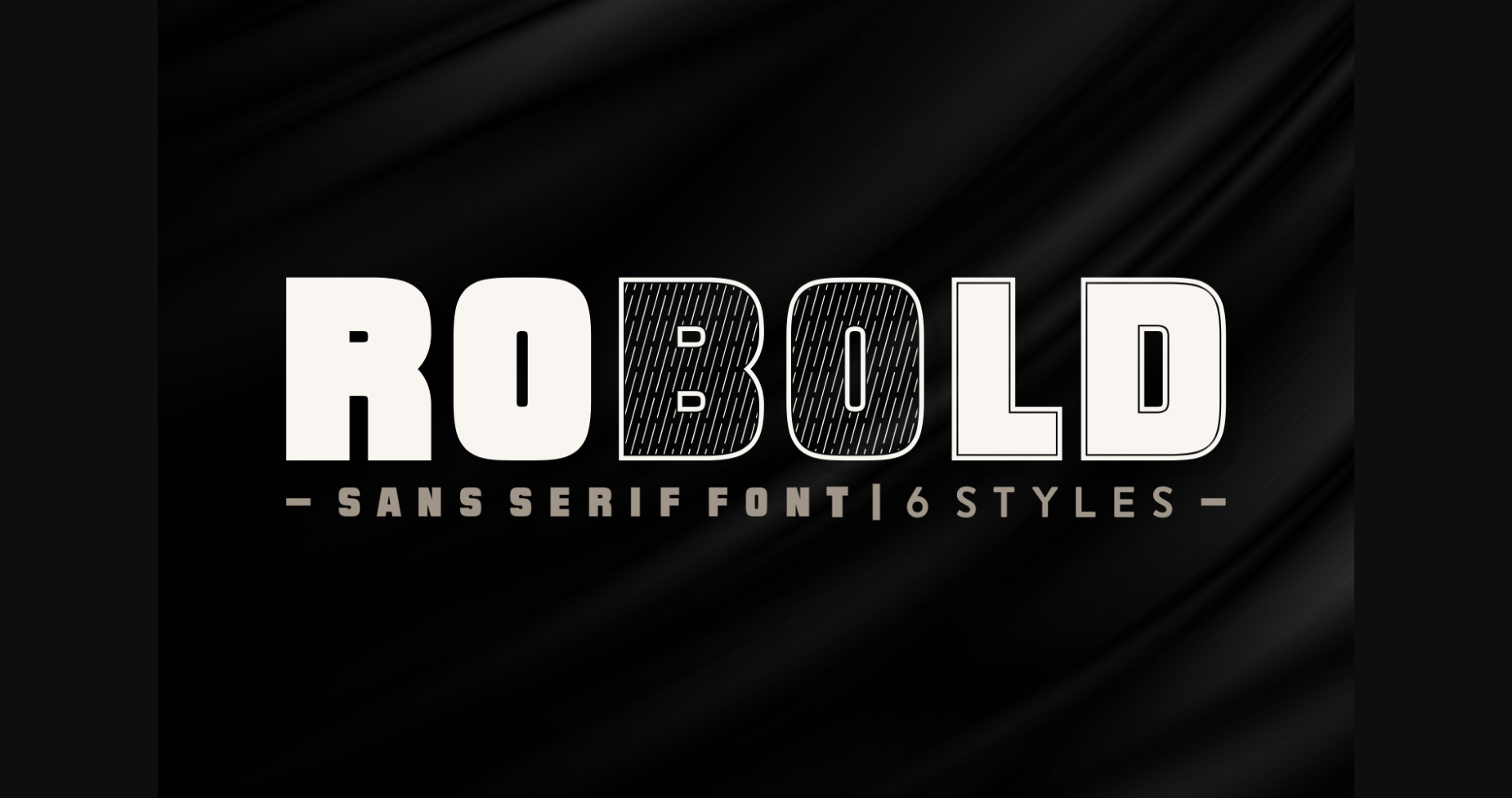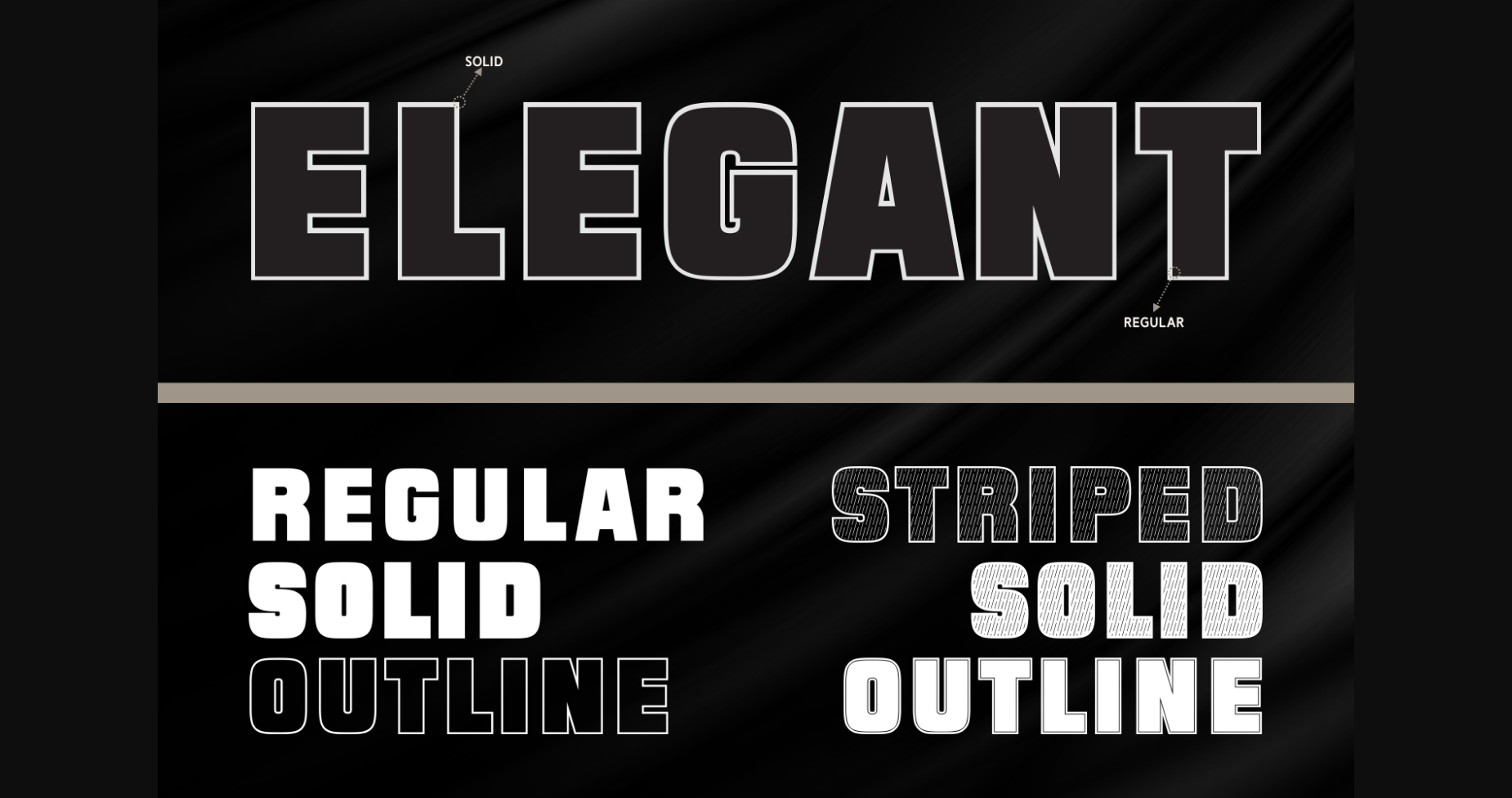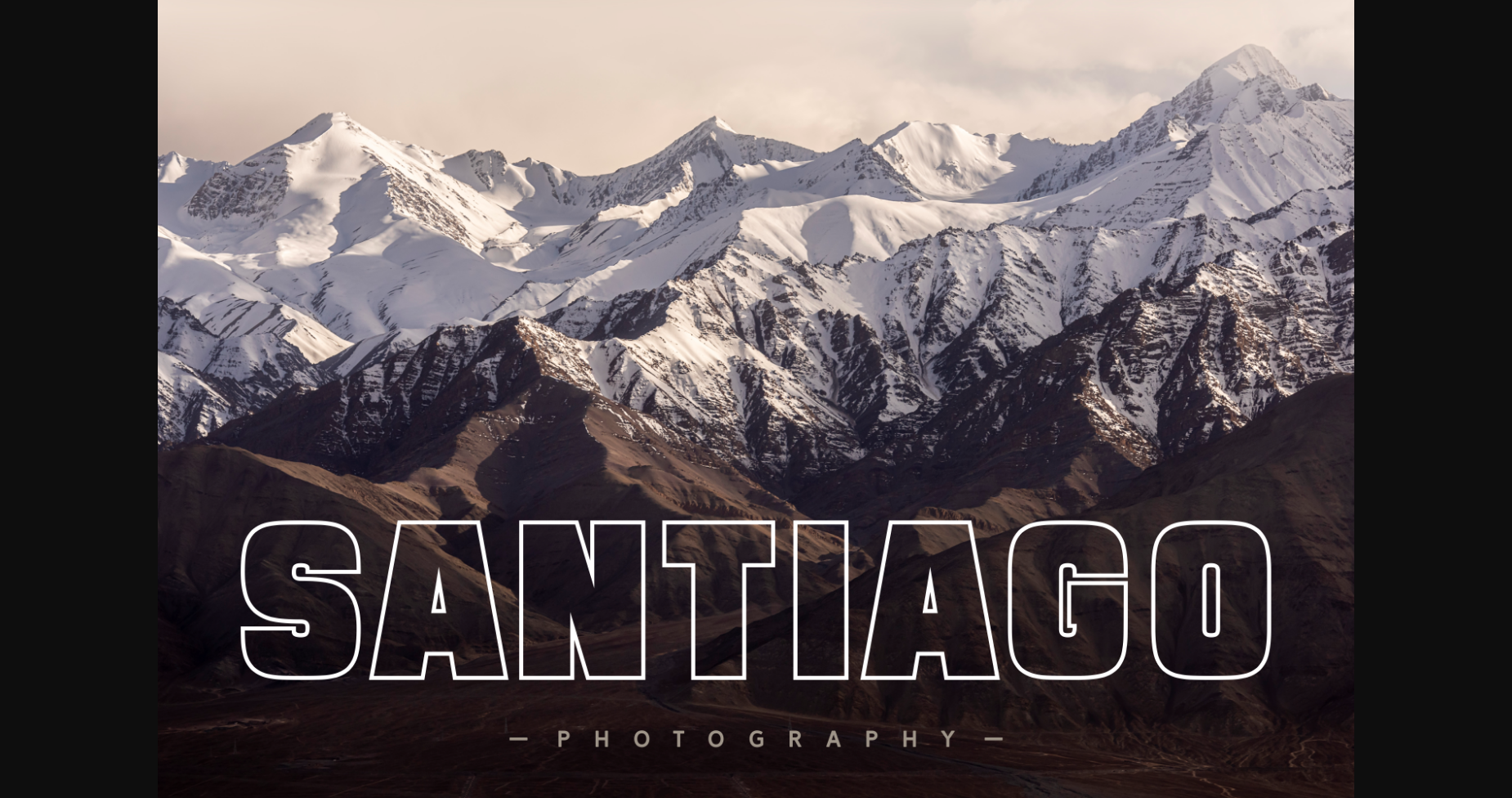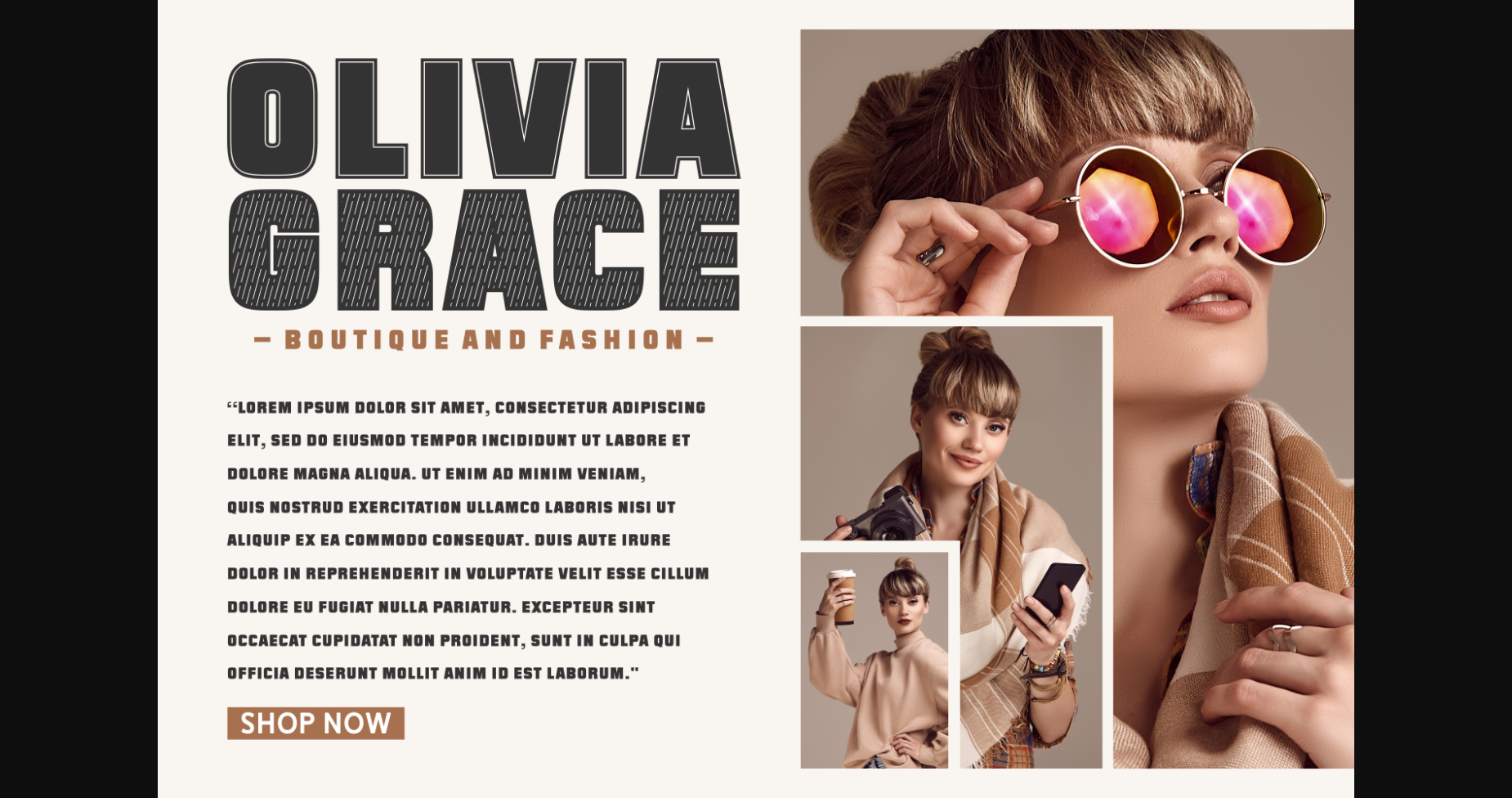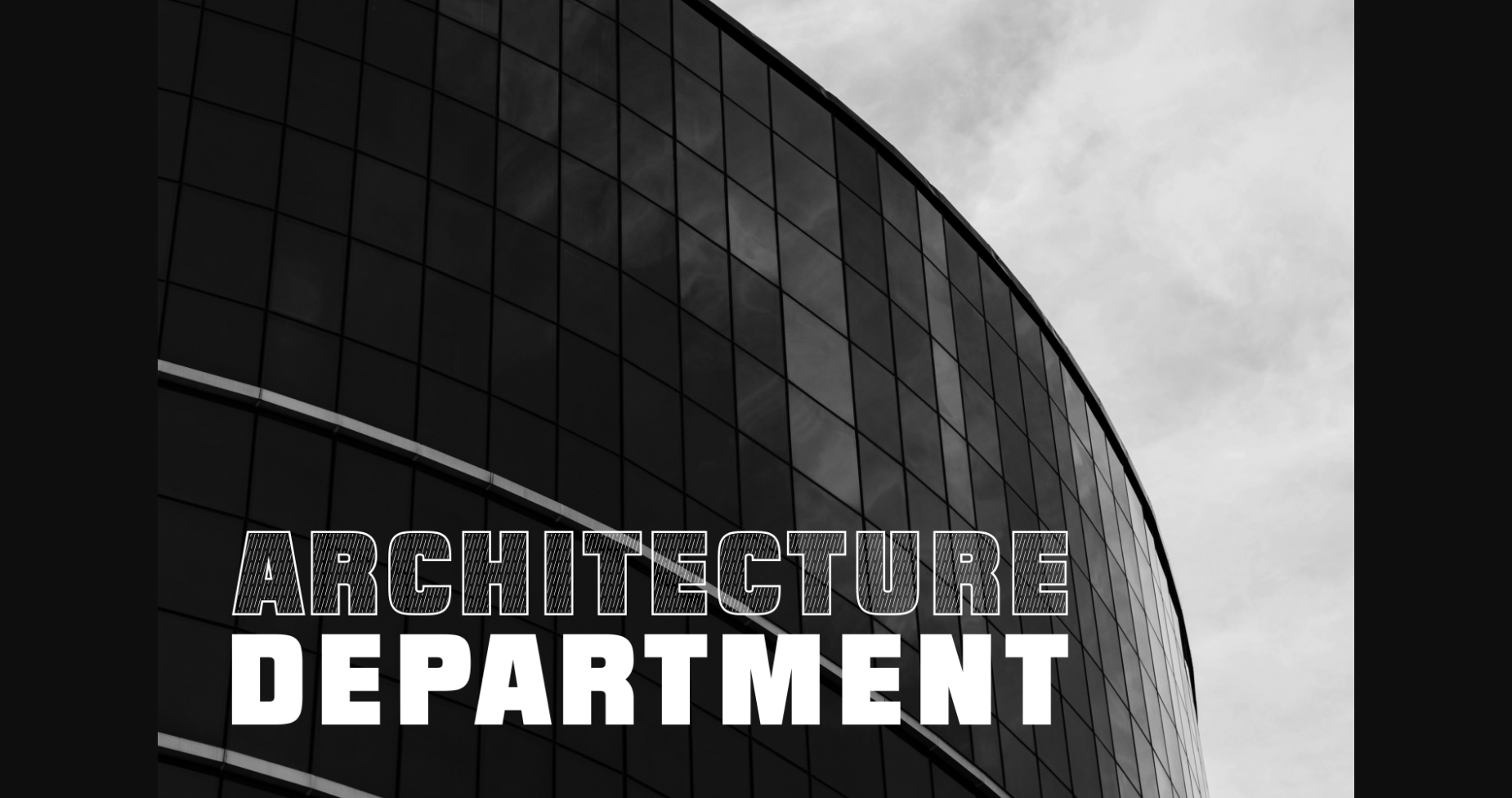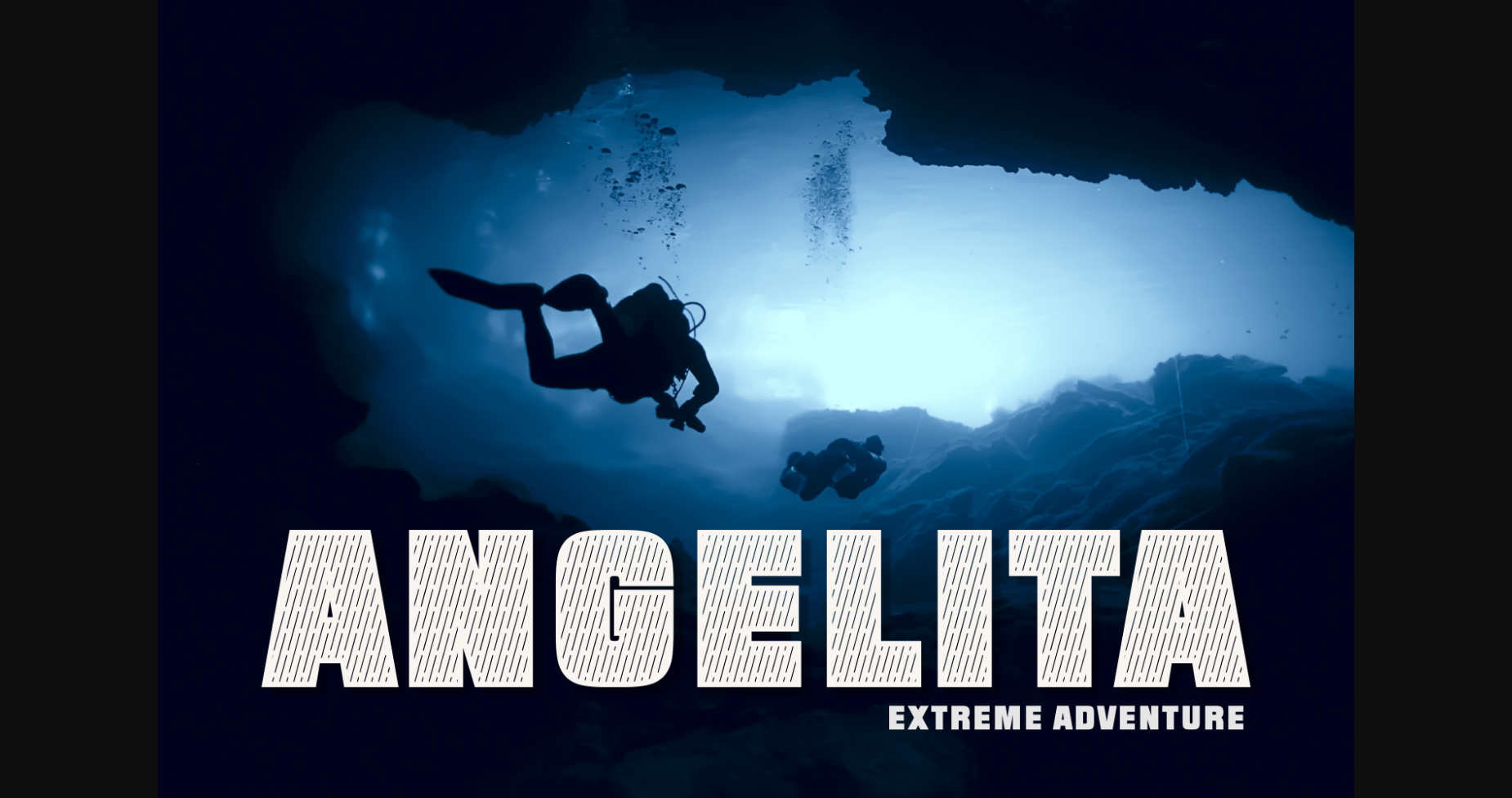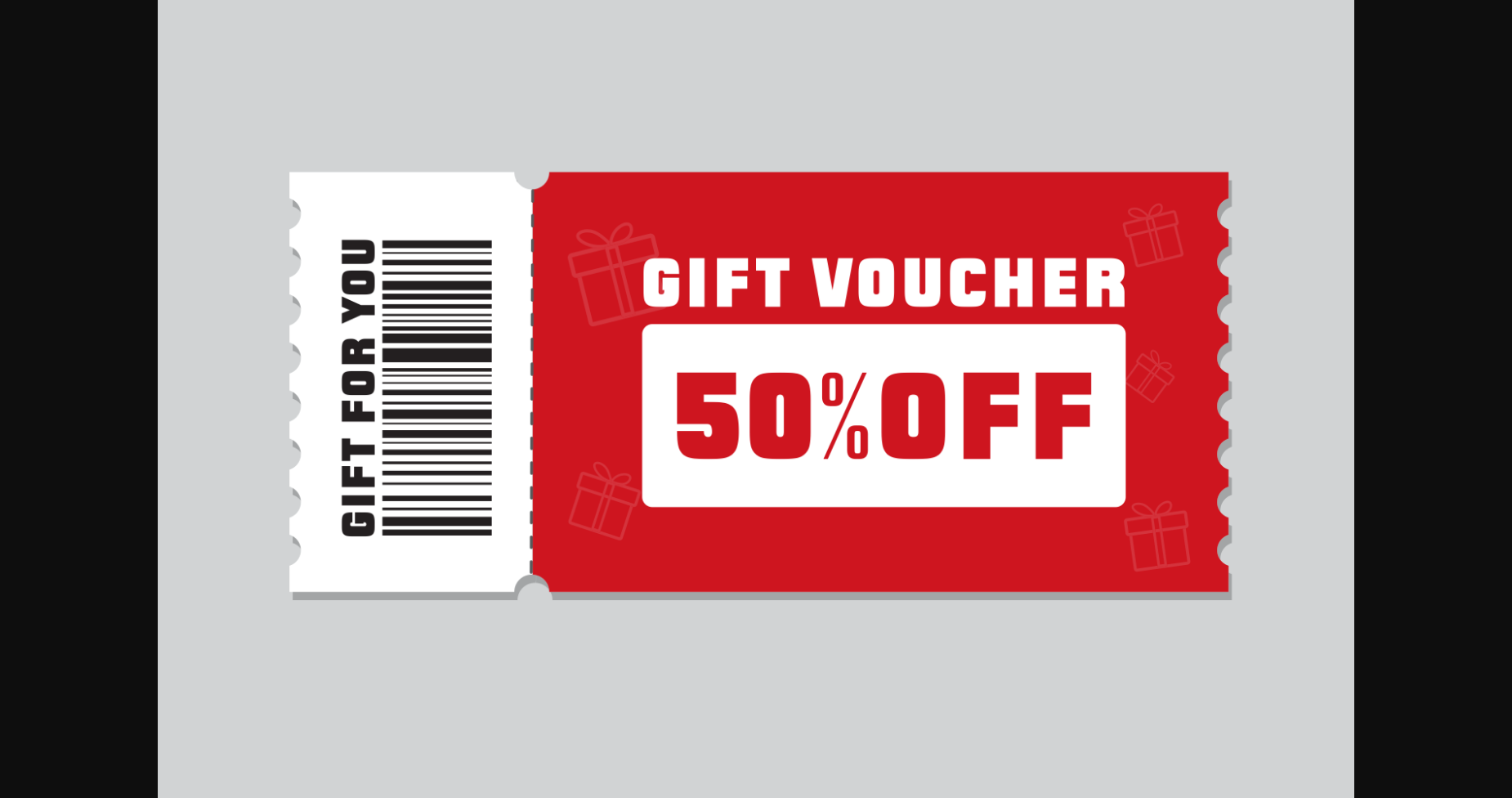
Robold is a bold and powerful display sans serif font that commands attention with its strong presence. With six distinctive styles to choose from, it offers versatility and flexibility for various design projects. Whether you need a font that exudes confidence and impact for headlines, titles, or logos, Robold delivers with its clean lines and bold weight.
It makes a perfect choice for modern branding, posters, and signage. Make a bold statement with Robold and let your designs stand out with their striking and memorable appeal.